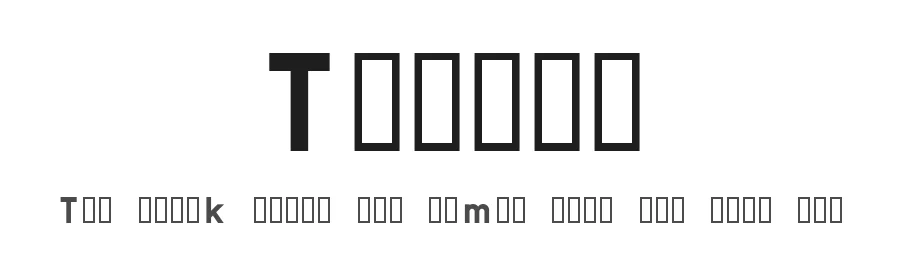
About Michelucci Font
Recreated this fonts from photos made in the Firenze Santa Maria Novella station.
The station was designed in 1932 by a group of architects known as the Gruppo Toscano (Tuscan Group) of which Giovanni Michelucci and Italo Gamberini were among the members; the building was constructed between 1932 and 1934.
Only the uppercase glyphs are present to preserve fidelity to the original type.
| Designer | Daniele Piccone |